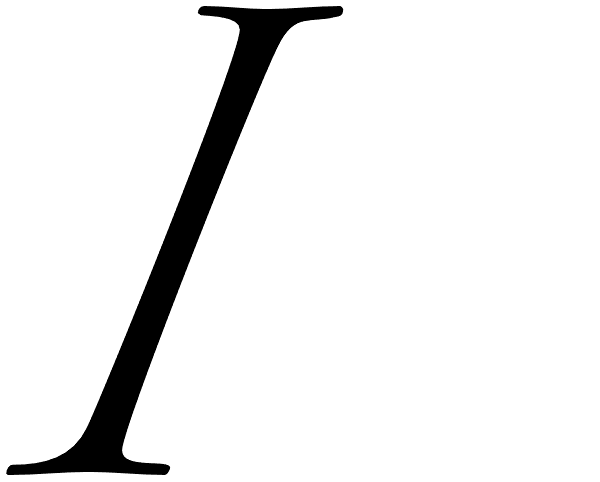
Pirouette
Pirouette is based on a logo that Japanese designer Ryuichi Tateno created for a packaging design project in 1999 (a shampoo container!). Tateno's logo experimented with complex, overlapped swash letterforms. He continued to develop these outside of...